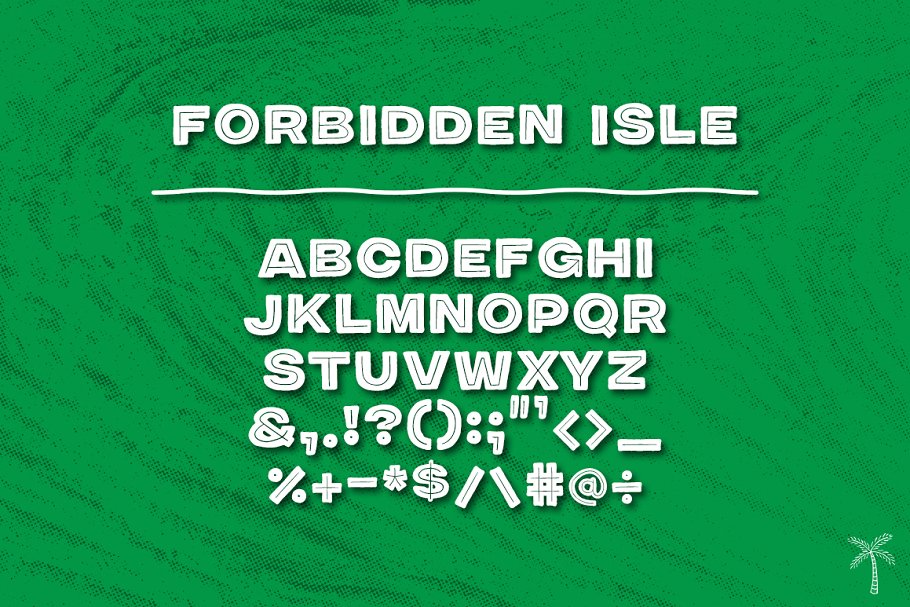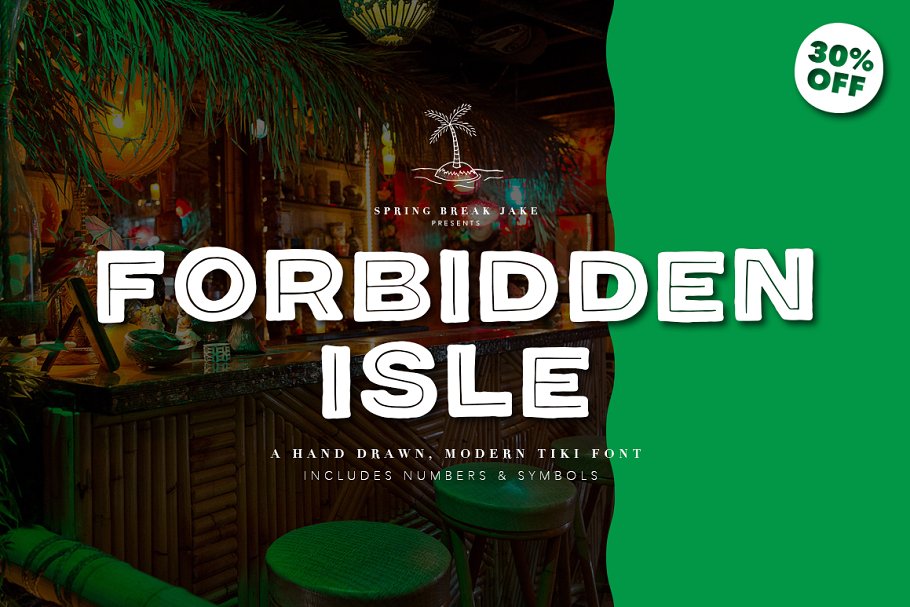
Forbidden Isle Tiki Font
Introducing Forbidden Font. It is designed by Spring Break Jake, this is a premium font, are sold on creativemarket, but it was great, it is free today for download. Forbidden Isle plays on the old, surfy tiki fonts of the 70s, brought into the modern times with a cleaner, bold look. Images are conjured up of bamboo bars, grass skirts, and eclectic mugs. This hand-drawn, sans serif typeface was created to express my love for all things tiki. Forbidden Isle pairs well with both serif and sans serif fonts and is perfectly suited to add life to your next illustration, invite, product, and more.